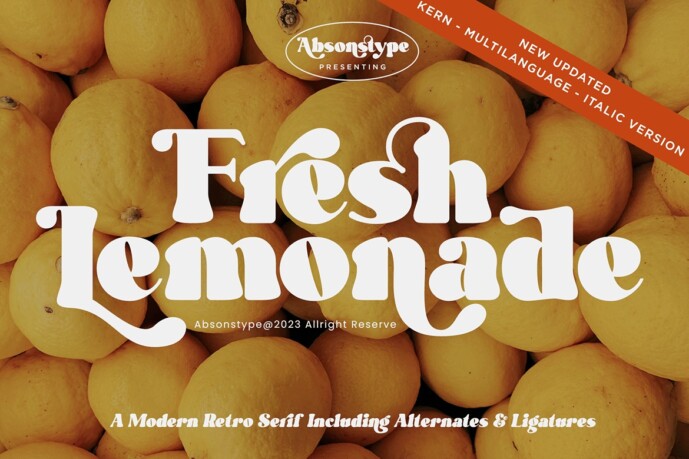
Fresh Lemonade Font
Designer: Haksen
Fresh Lemonade is the Bold Serif display typeface with combine uppercase and lowercase looks and feel nice balanced. Provide with alternates and ligatures font in variant style make the design letter looks nice. Honestly it works perfectly for headlines, logos, posters, packaging and much more.
Font Features :
• Regular version
• Character set A-Z in Uppercase and Lowercase
• Alternates in Uppercase and Lowercase
• Ligatures in Lowercase
• Numerals & Punctuation
• Accented Characters
• Multiple Languages Supported